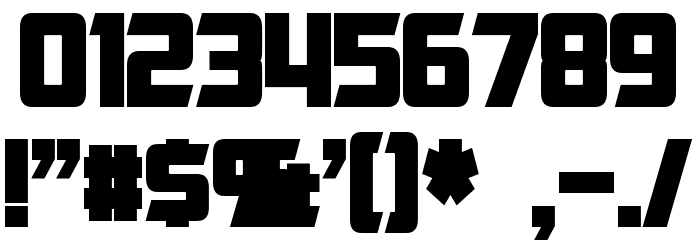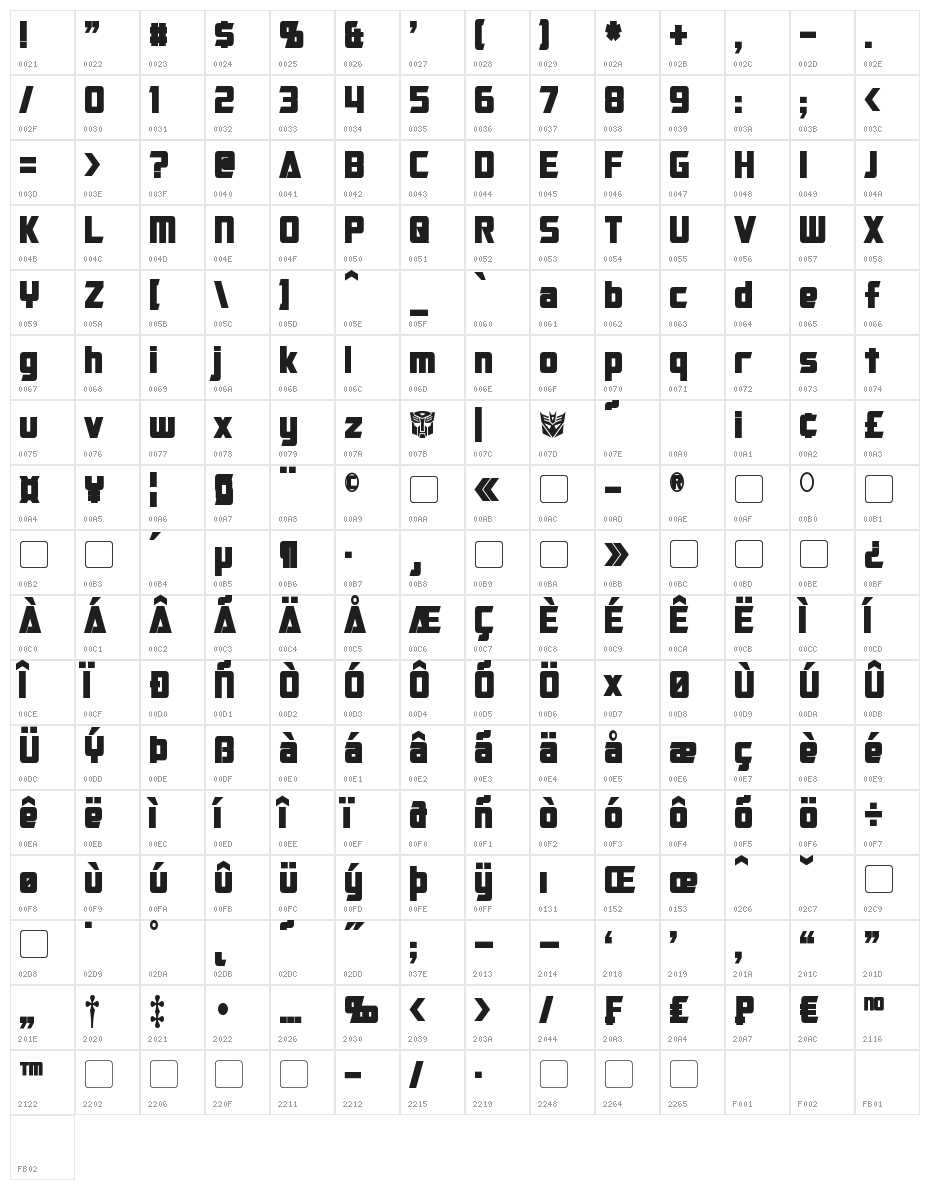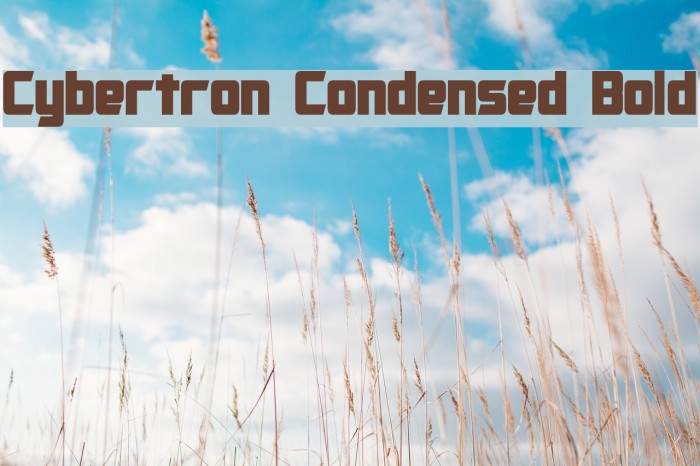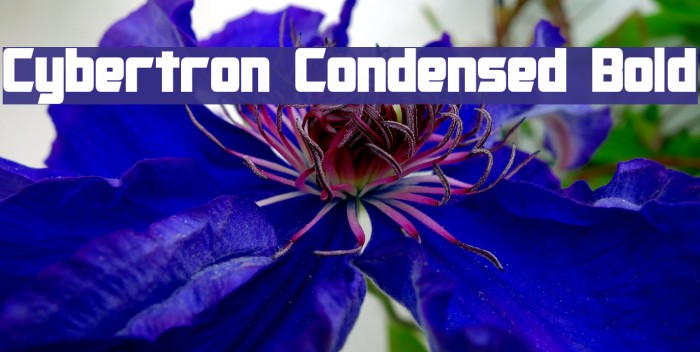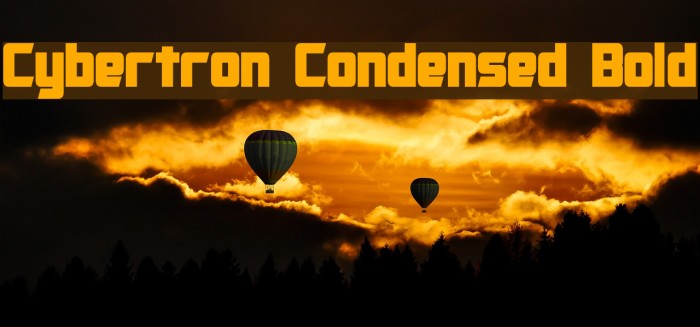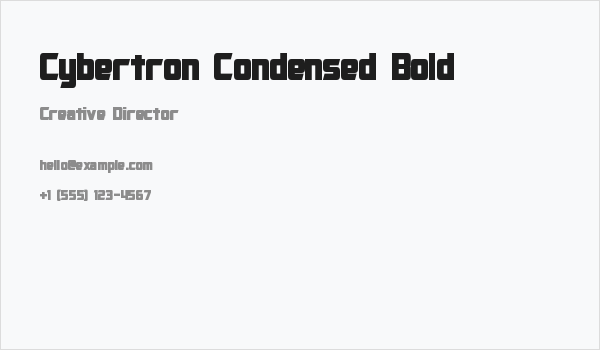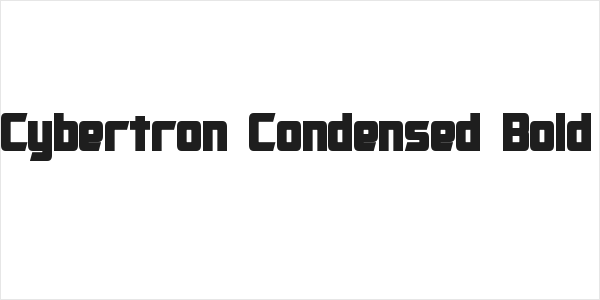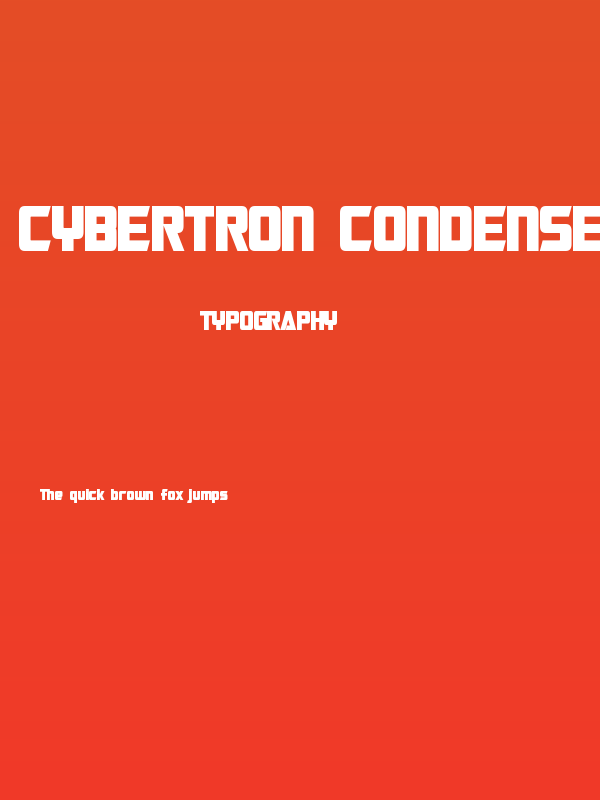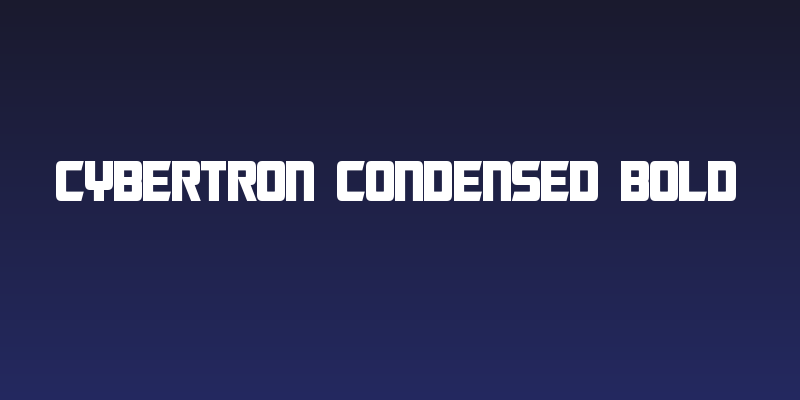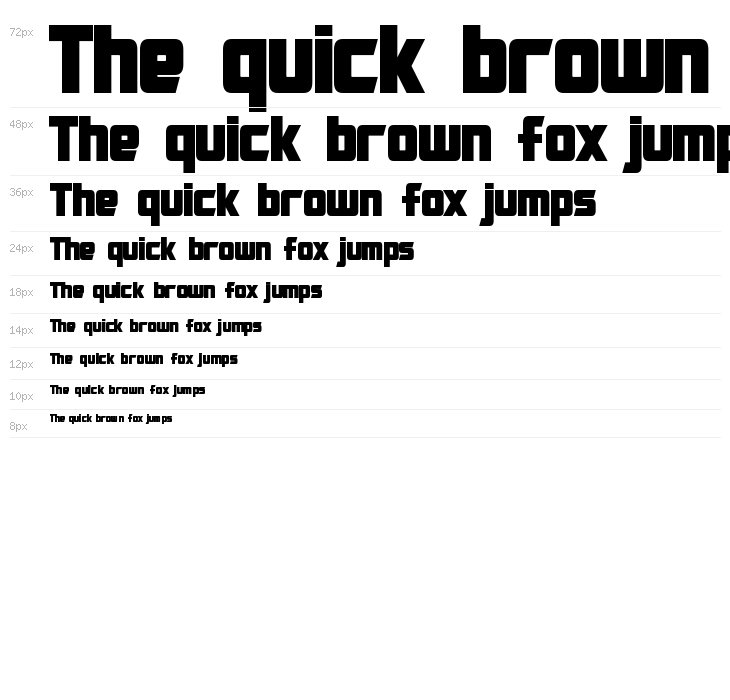
Cybertron Condensed Bold Font
Cybertron Condensed Bold Description
This font features a bold and condensed style with a futuristic and geometric design. The characters are blocky and angular, giving a strong and impactful appearance. The uppercase and lowercase letters maintain a consistent height, contributing to a uniform look. The numerals and special characters are designed to match the boldness of the alphabet, ensuring a cohesive visual experience. The overall design is modern and assertive, making it suitable for attention-grabbing headlines and logos.